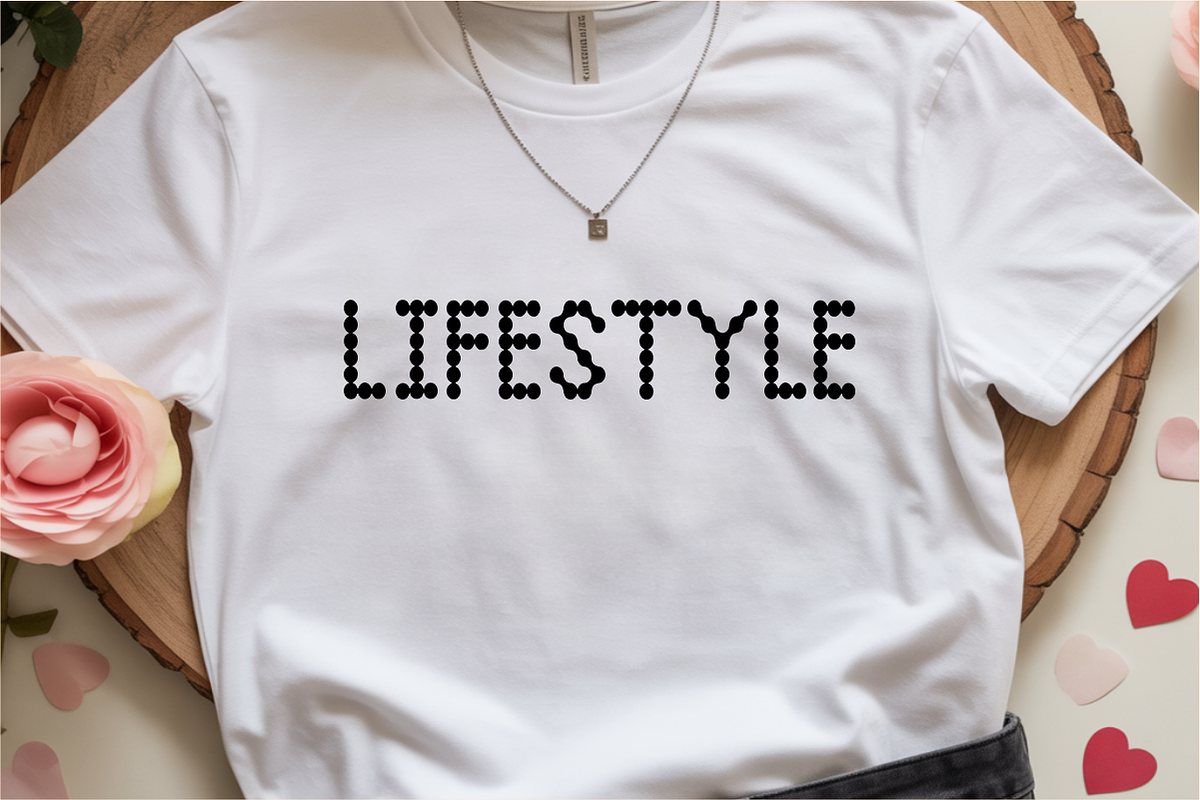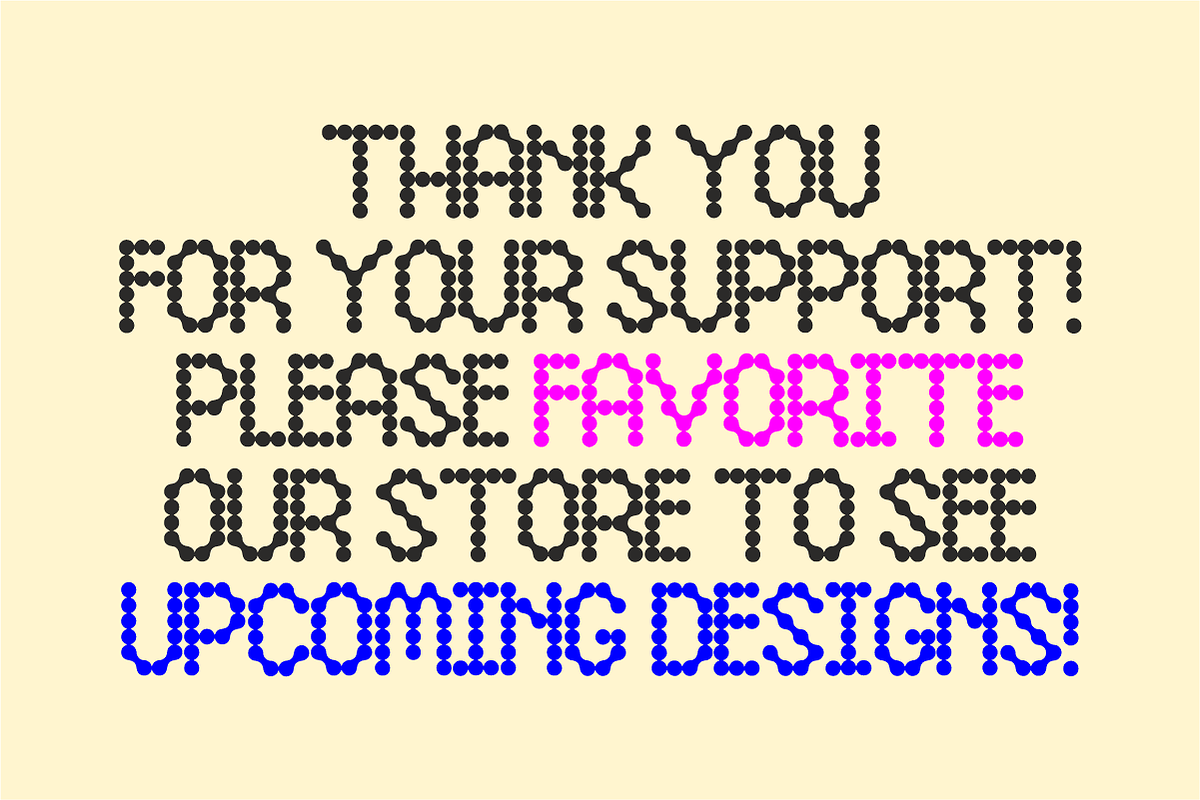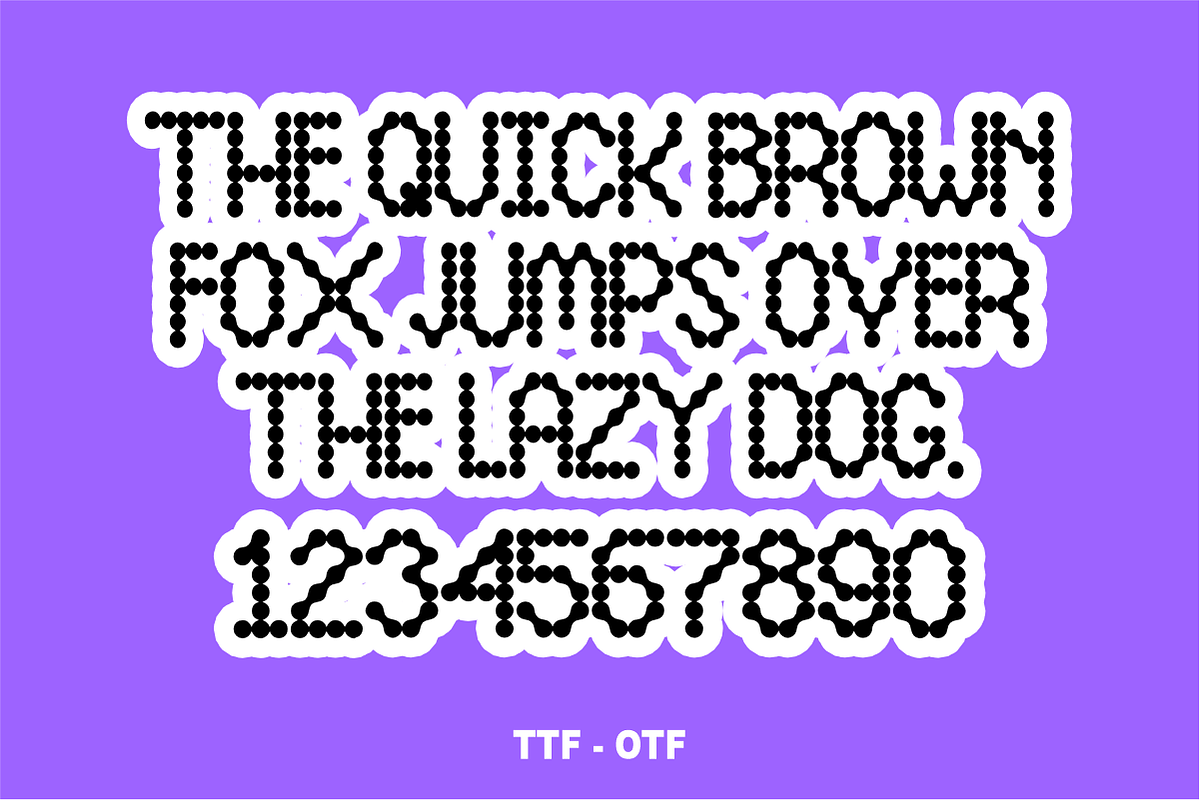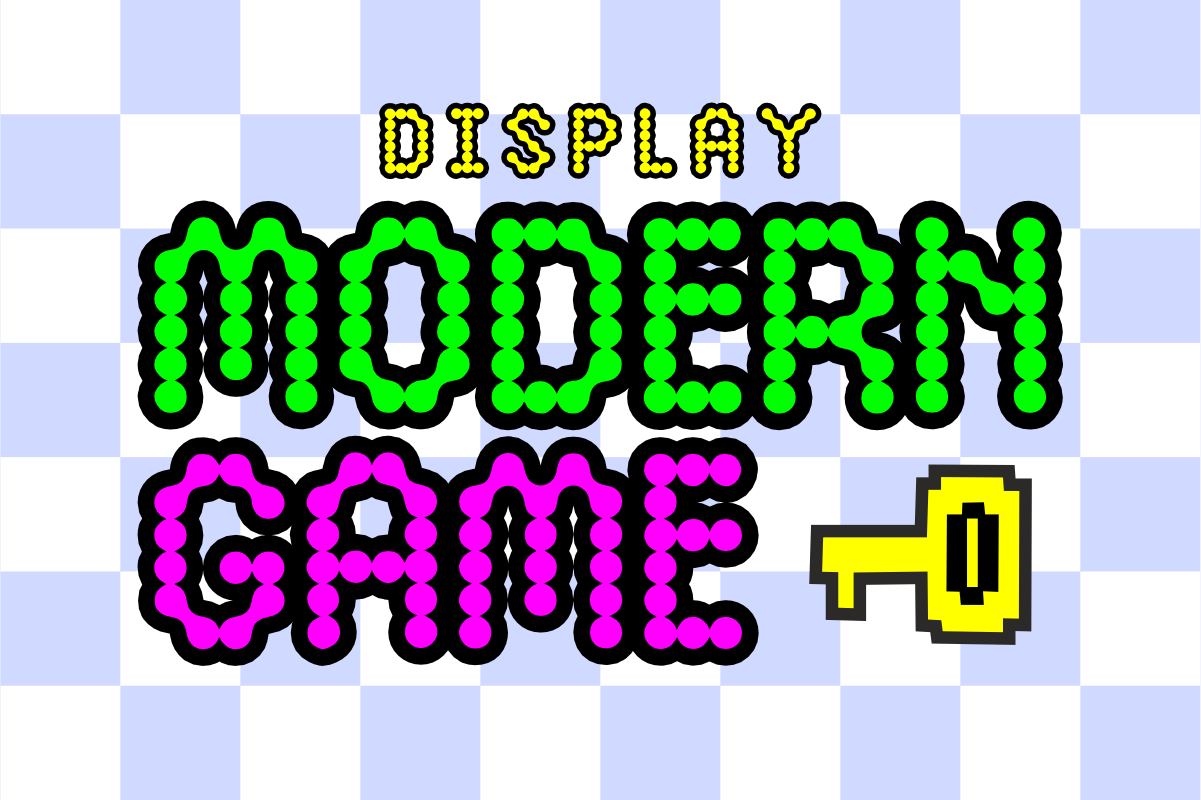
Modern Game – Gaming Font
Modern Game – Bold Futuristic Gaming Font 🎮⚡
Level up your designs with sharp, high-tech energy!
Modern Game is a powerful display font engineered for the digital age. Featuring a bold, heavy-weight silhouette with unique geometric "slice" details, this font captures the essence of speed, innovation, and futuristic technology. It is the ultimate choice for creators looking to build a commanding brand presence in the gaming, esports, and tech industries. Whether it's a massive headline or a sleek logo, Modern Game ensures your project looks cutting-edge and professional.
🌟 Why Modern Game is a Must-Have:
Futuristic Geometric Detail: The sharp, horizontal cut-outs add a sense of motion and tech-sophistication that sets it apart from standard block fonts.
Maximum Impact: Its extra-bold structure provides incredible visibility, making it perfect for high-speed visuals and digital displays.
Professional & Clean: Meticulously designed to maintain perfect balance and legibility, even in high-pressure design layouts.
🎨 Perfect For:
🎮 Esports & Gaming: Create legendary team logos, tournament banners, and in-game UI elements.
📺 Streaming & Content Creation: Bold YouTube thumbnails, Twitch overlays, and high-energy social media titles.
💻 Tech & Future Branding: Innovative logos for apps, hardware companies, and startup identities.
👕 Streetwear & Merchandise: High-impact graphics for t-shirts, jerseys, and urban accessories.
🎬 Sci-Fi & Action Media: Title sequences for movies, posters, and futuristic book covers.
Character Set: All-Caps Uppercase Letters (A-Z) with a tech-heavy aesthetic.
Numbers & Symbols: Matching numerals (0-9) and essential simple punctuation.